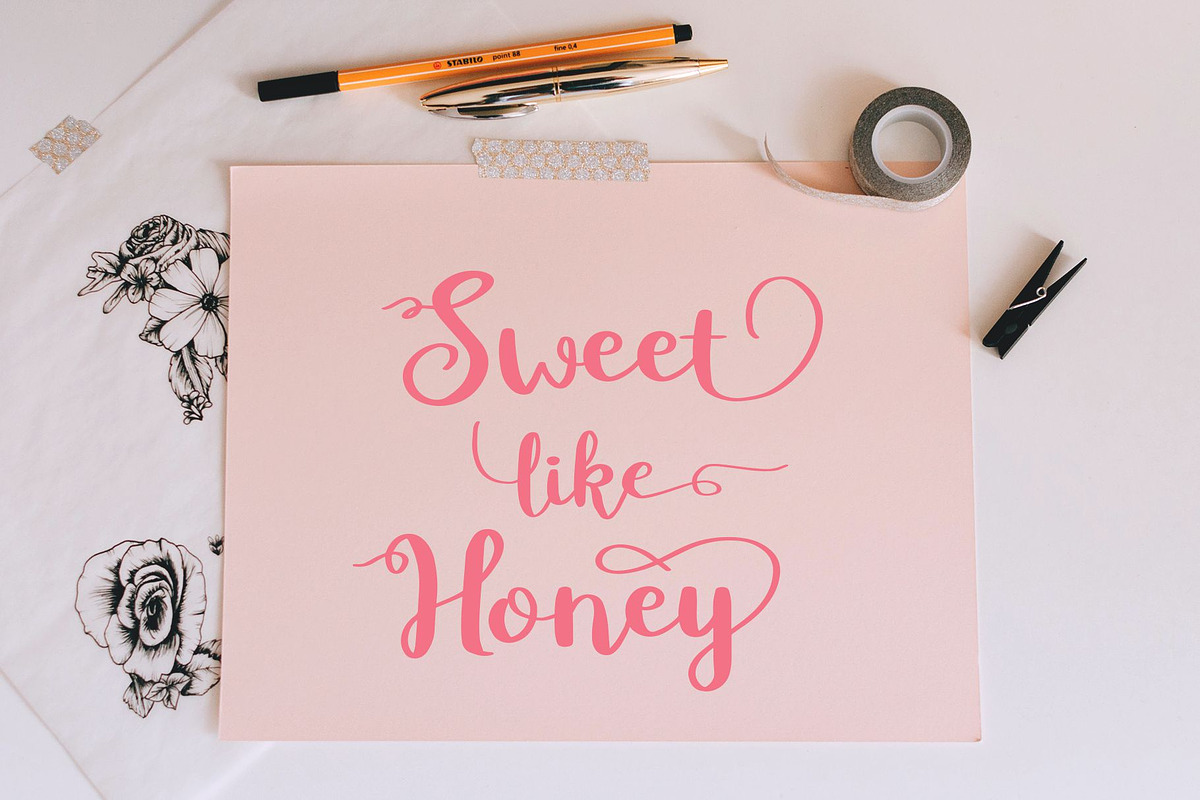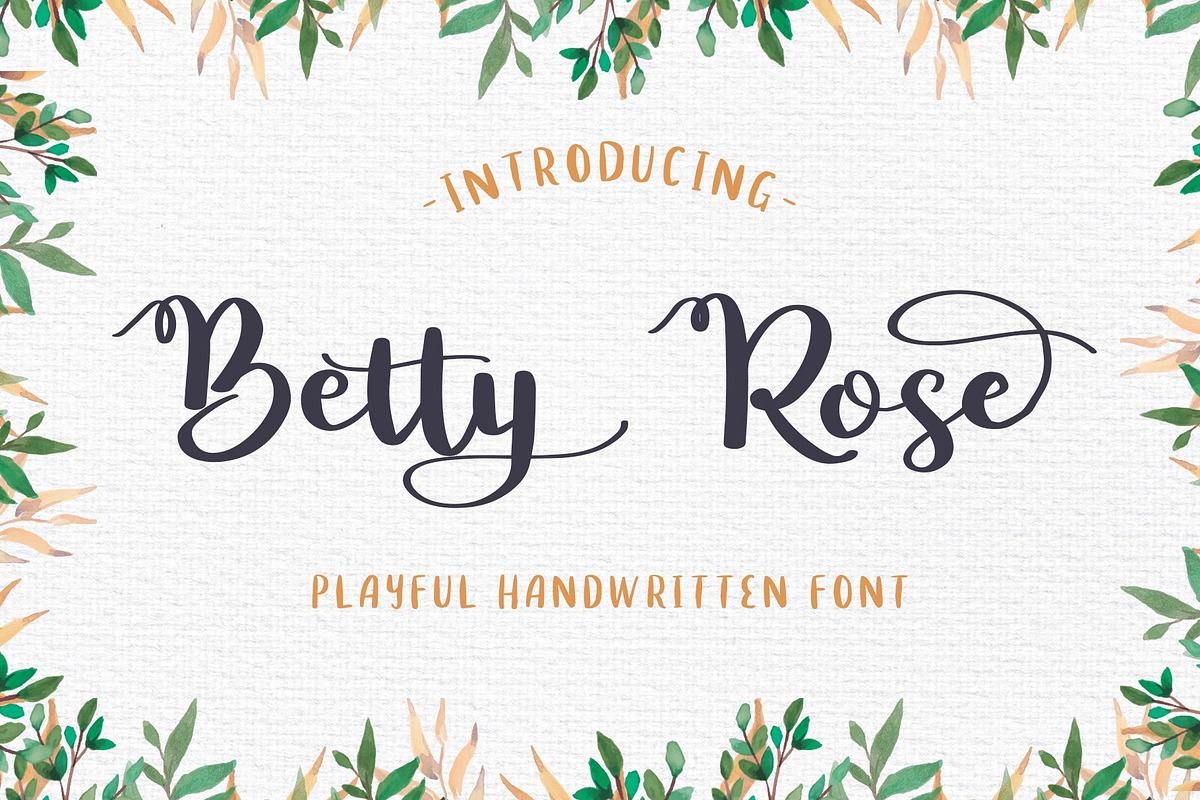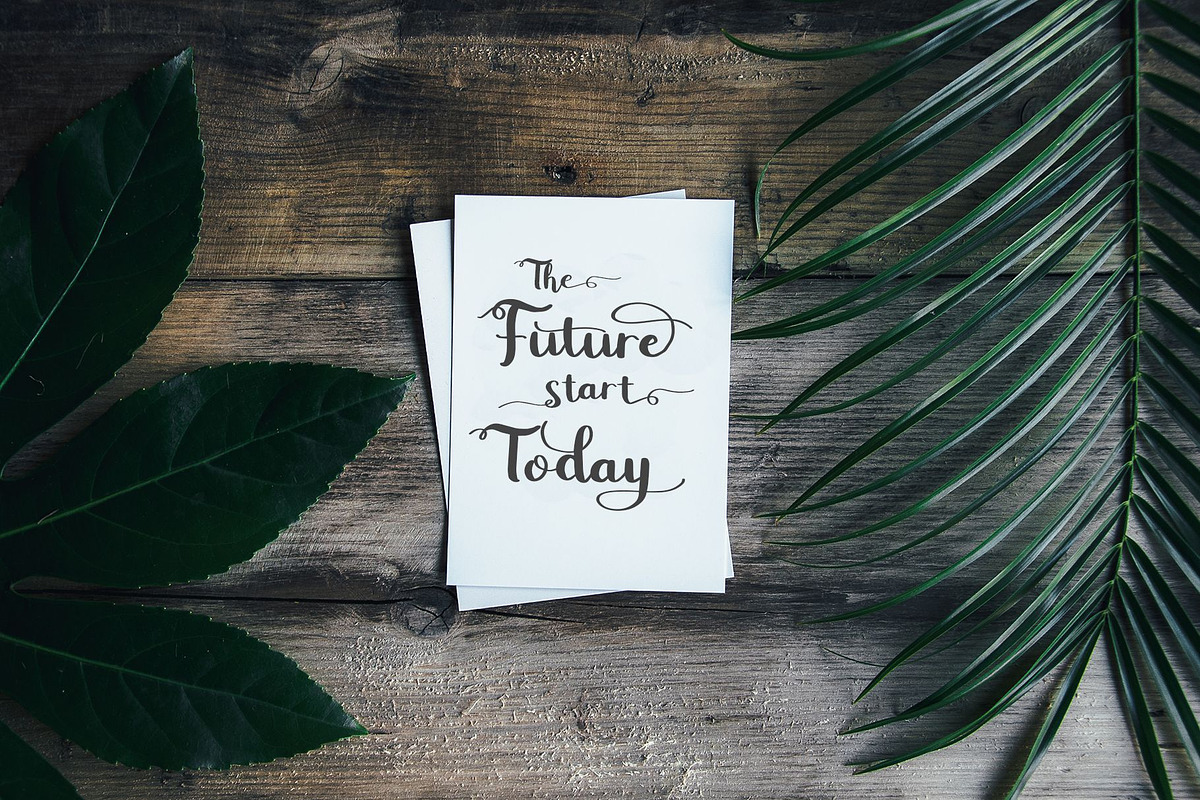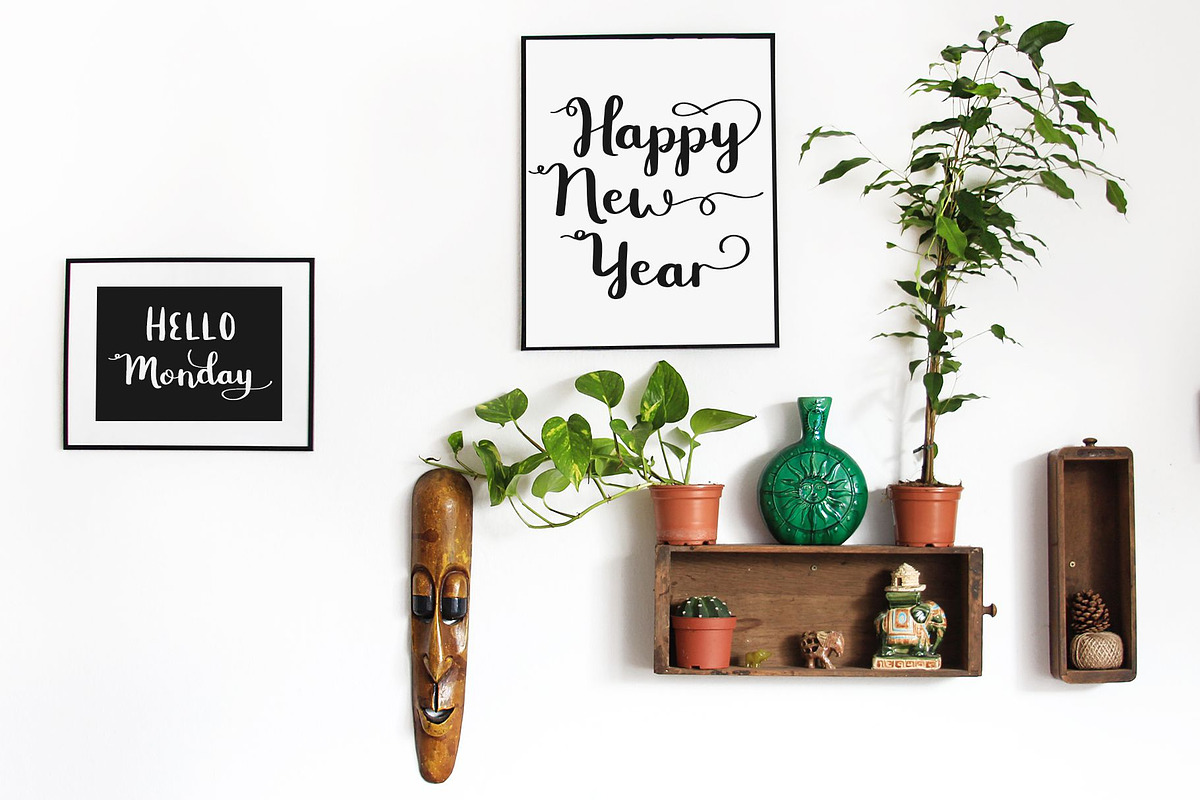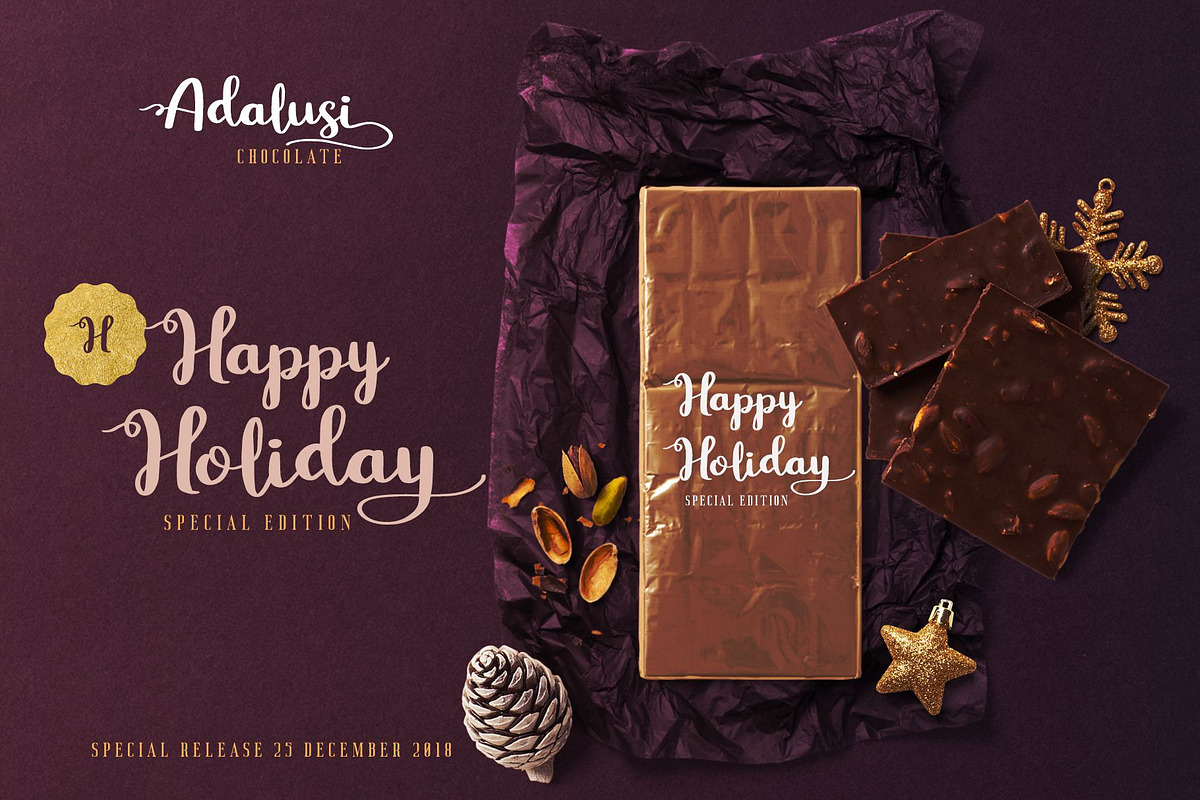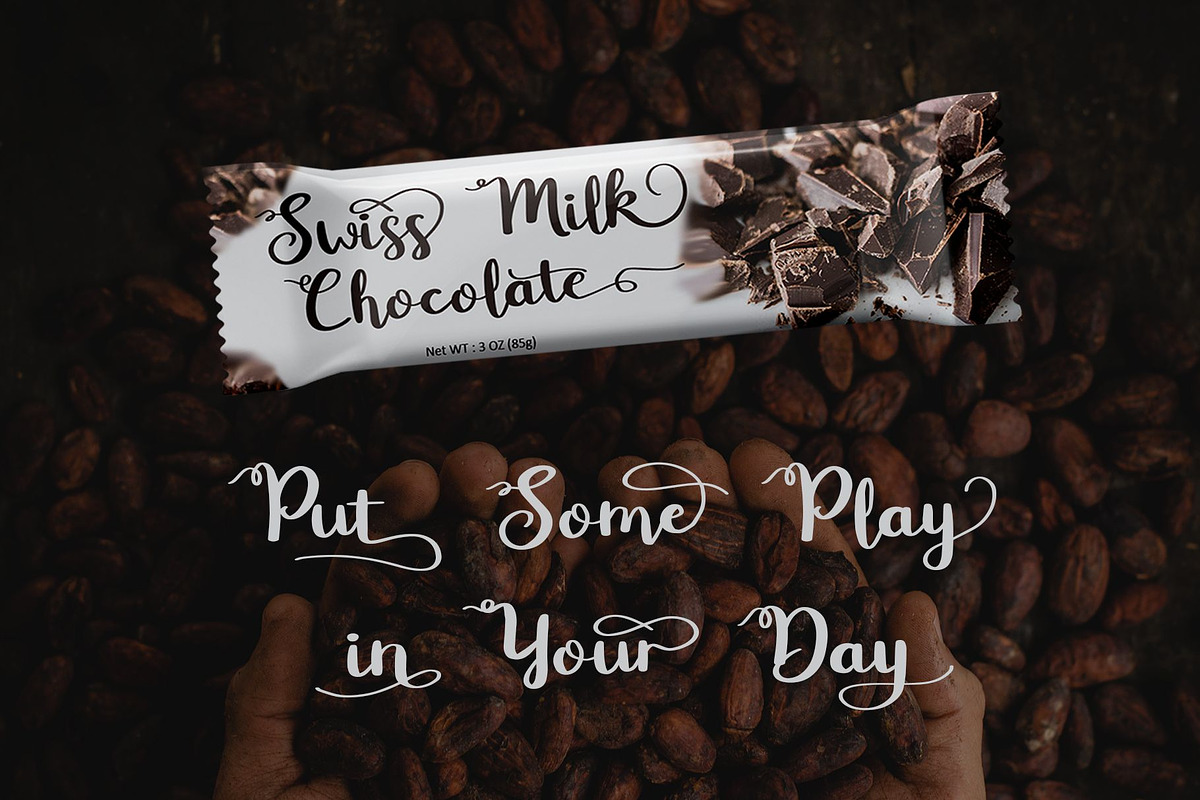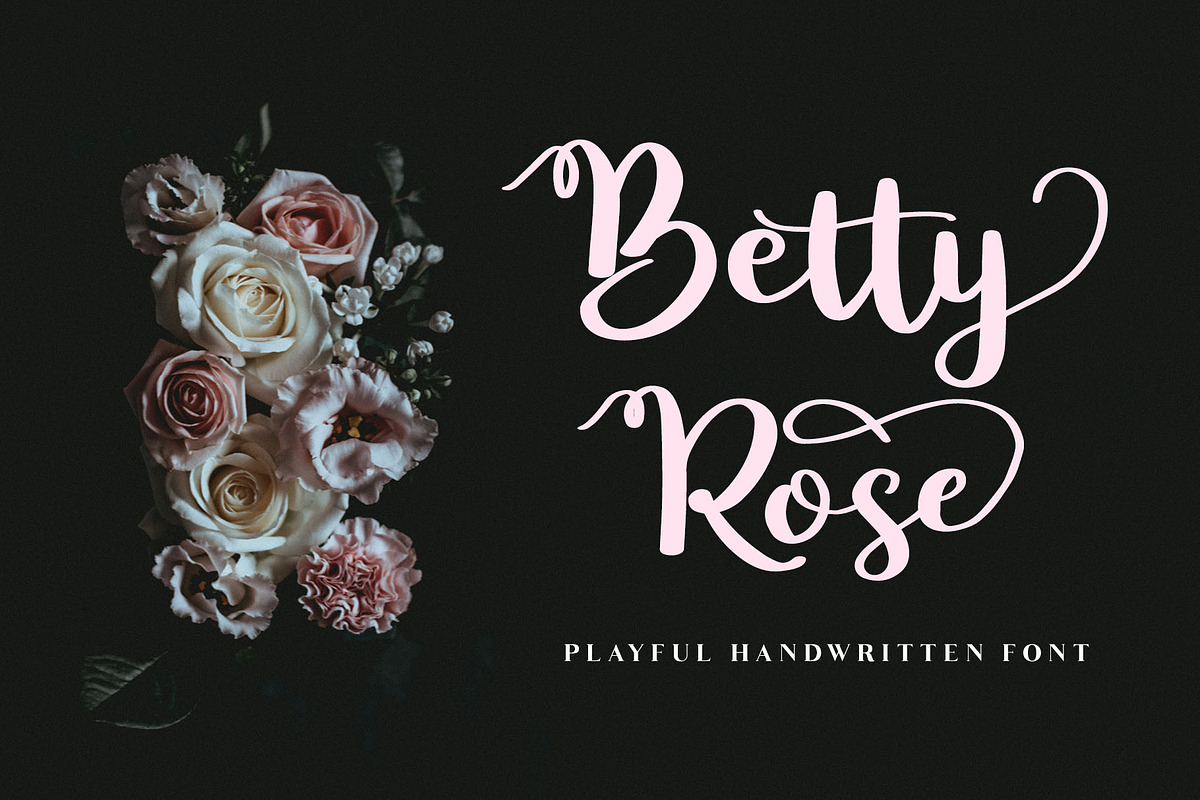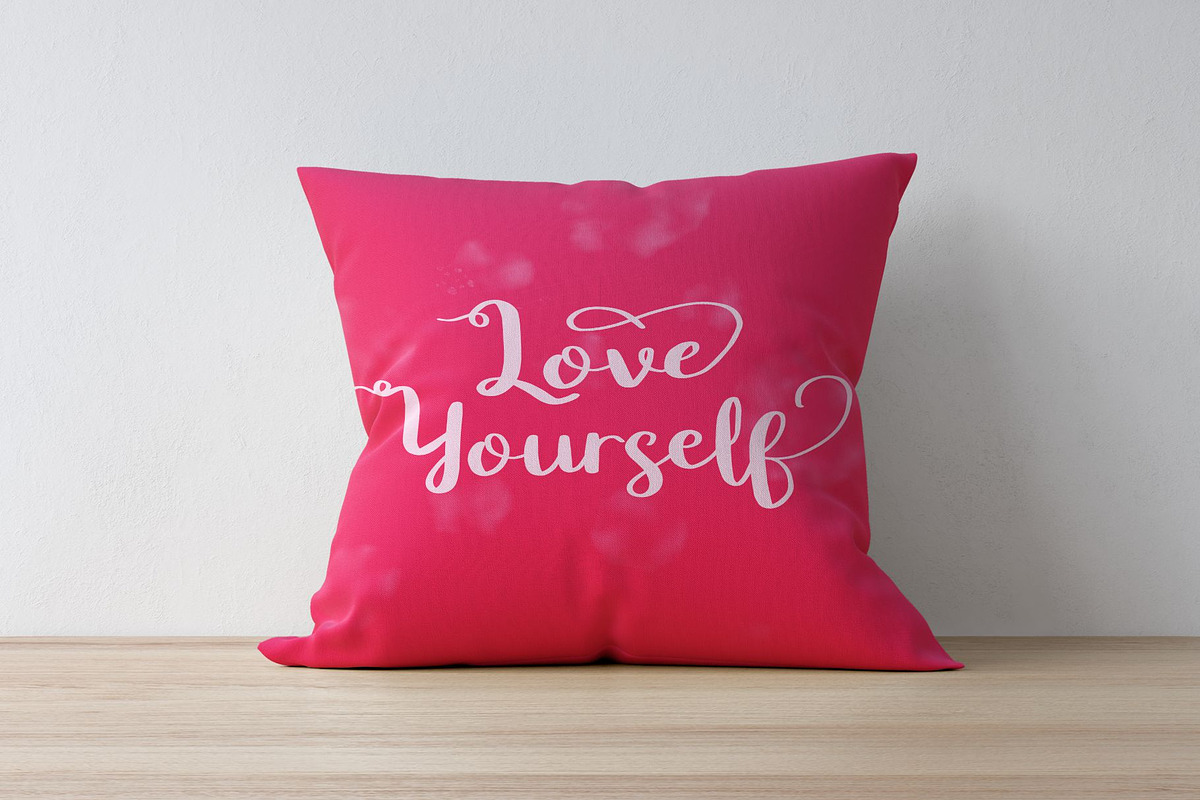
Betty Rose - Handwritten Font
Betty Rose - Handwritten Font is an handwritten script font based on the expression of real handwriting, lets you transform type into an exciting and beautiful piece of work. The irregular, hand-lettered look adds a real human touch to things and comes along with a lot of loving details. Combine all font-styles the way you want, add some ornamental swashes or banners and even a single word becomes magnificent.
Betty Rose - Handwritten Font gives you possibility to build your text almost like handwriting with all the charming imperfections and variations that a real handwriting has. Bravely will work perfectly for fashion, e-commerce brands, trend blogs, wedding boutiques or any business that wants to appear upscale and chic.
1. Upper Case & Lowercase
2. Stylistic Alternates
3. Standart Ligatures
4. Numerals & Punctuations (OpenType Standard) (AÀÁÂÃÄÅCÇDÐEÈÉÊËIÌÍÎÏNÑOØÒÓÔÕÖUÙÜÚÛWYÝŸỲŸÆŒßÞ)
5. Accents (Multilingual characters)